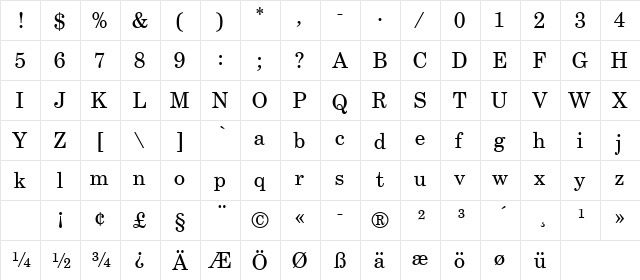
CenturySchPReg Regular
CenturySchPReg takes a measured approach to typography — its balanced proportions and neutral character make it a reliable workhorse for both digital and print work.